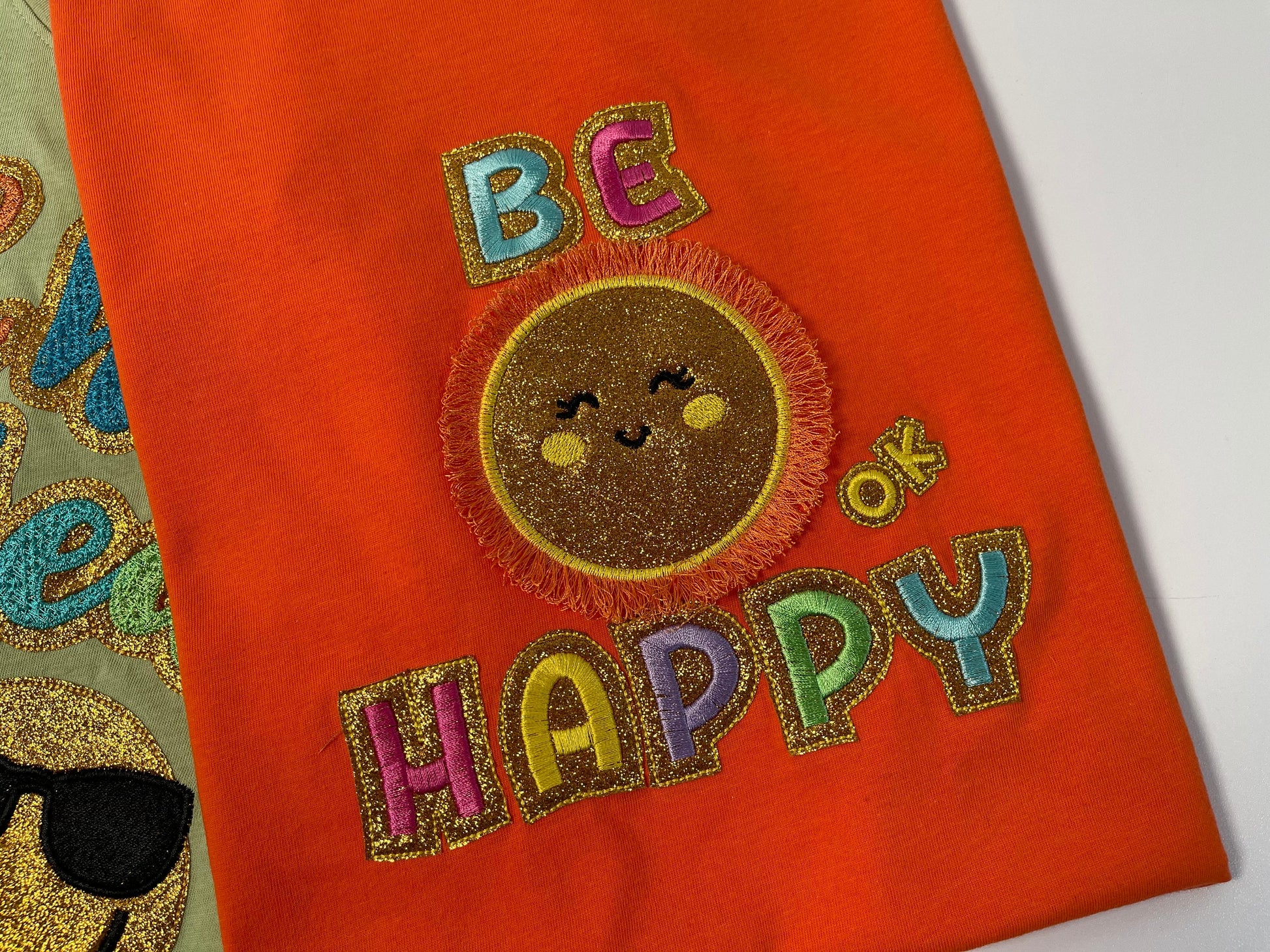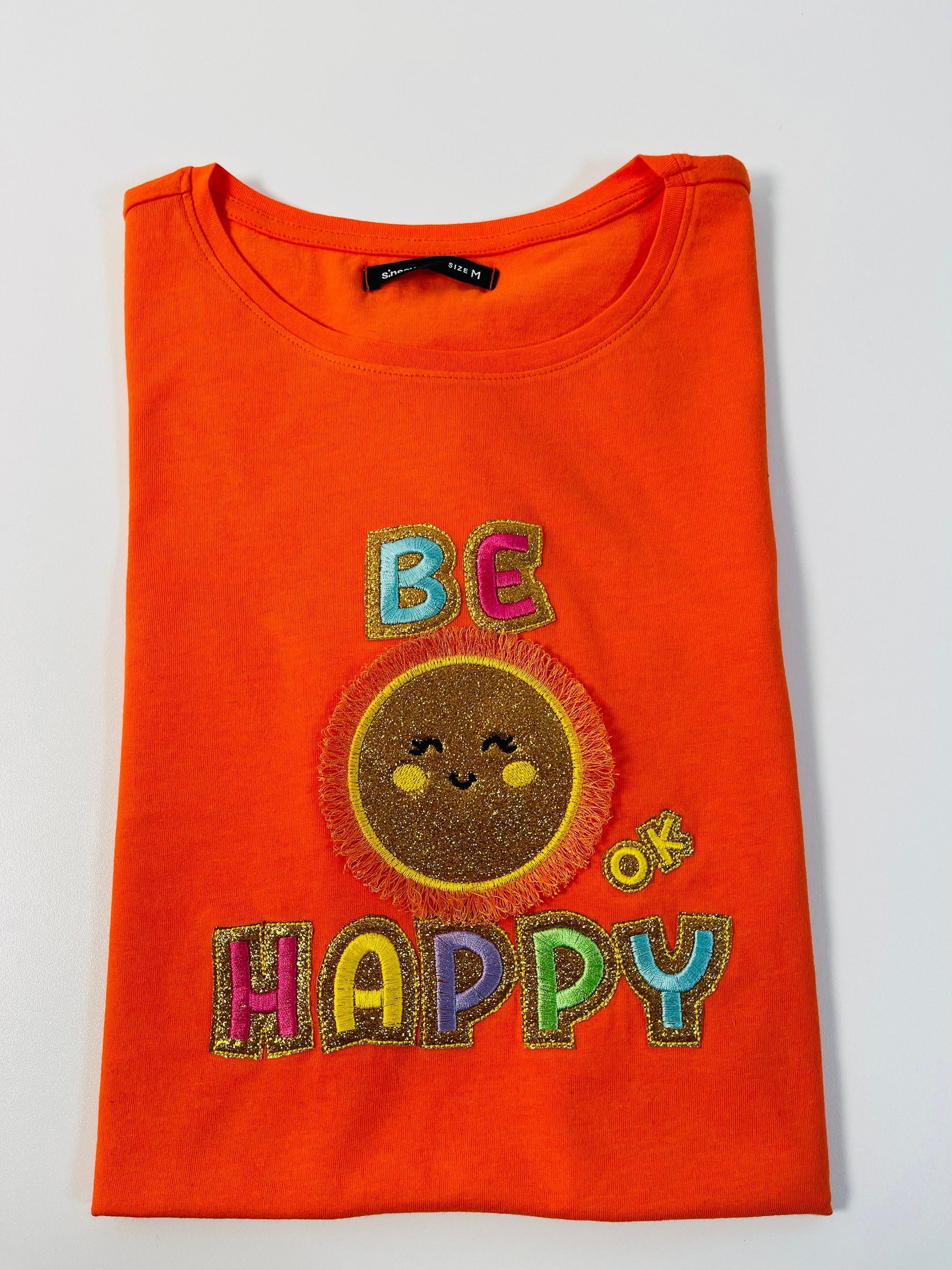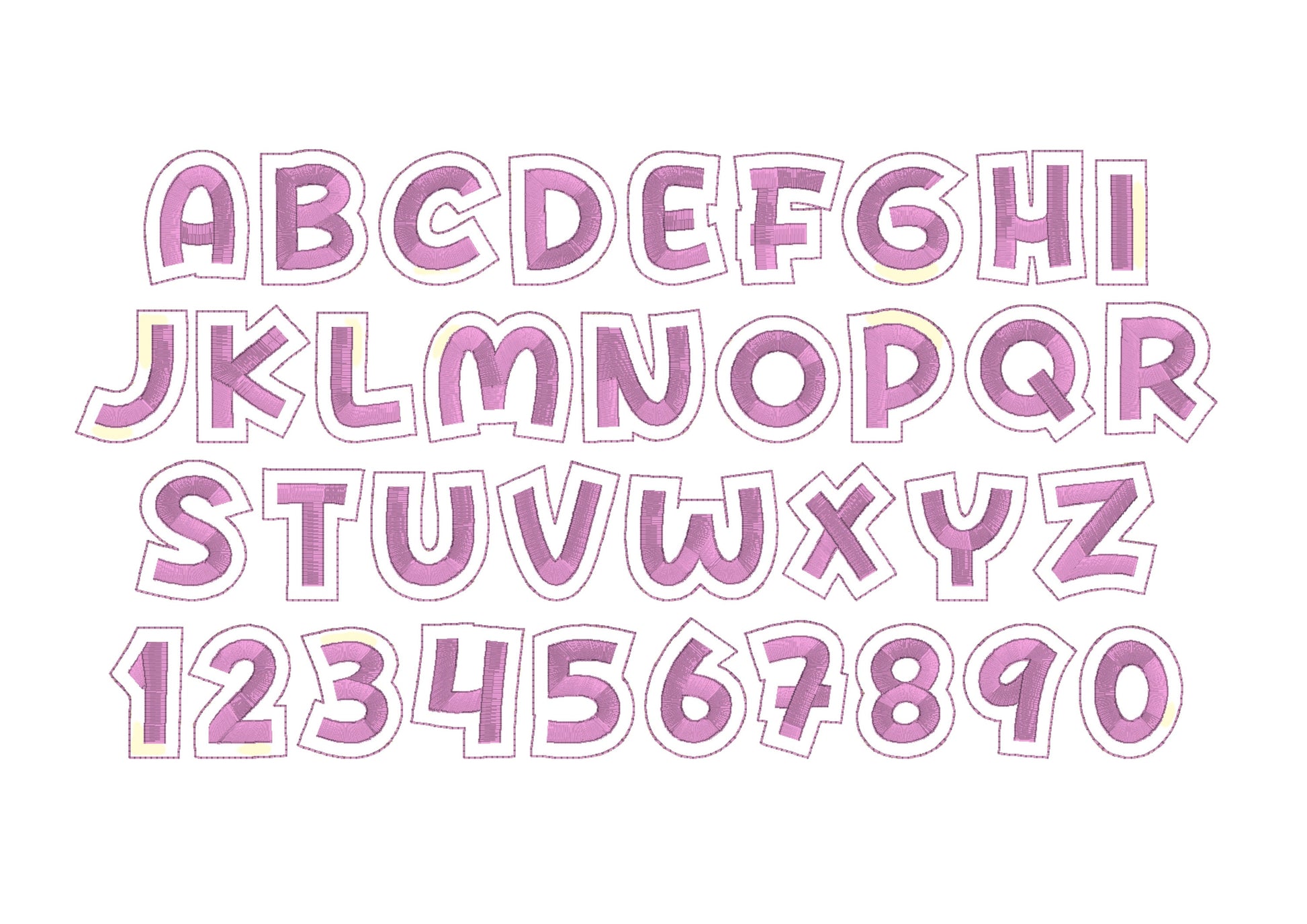
Glitter HTV Vinyl Sparkle Font
Or click to open the linkA mini faux patch font for glitter heat transfer vinyl, with a satin edge and outline, plus a fringed sun. Sparkly for names on shirts, bags and summer outfits.
Uppercase letters A to Z and numbers 0 to 9 in five mini sizes: 0.7, 0.9, 1.1, 1.4 and 1.7 inches. The fringed sun comes in 3, 3.5, 4 and 4.5 inches.
- Glitter vinyl faux patch mini font
- Uppercase A-Z, numbers 0-9, 0.7 to 1.7 in
- Fringed sun, 3 to 4.5 in